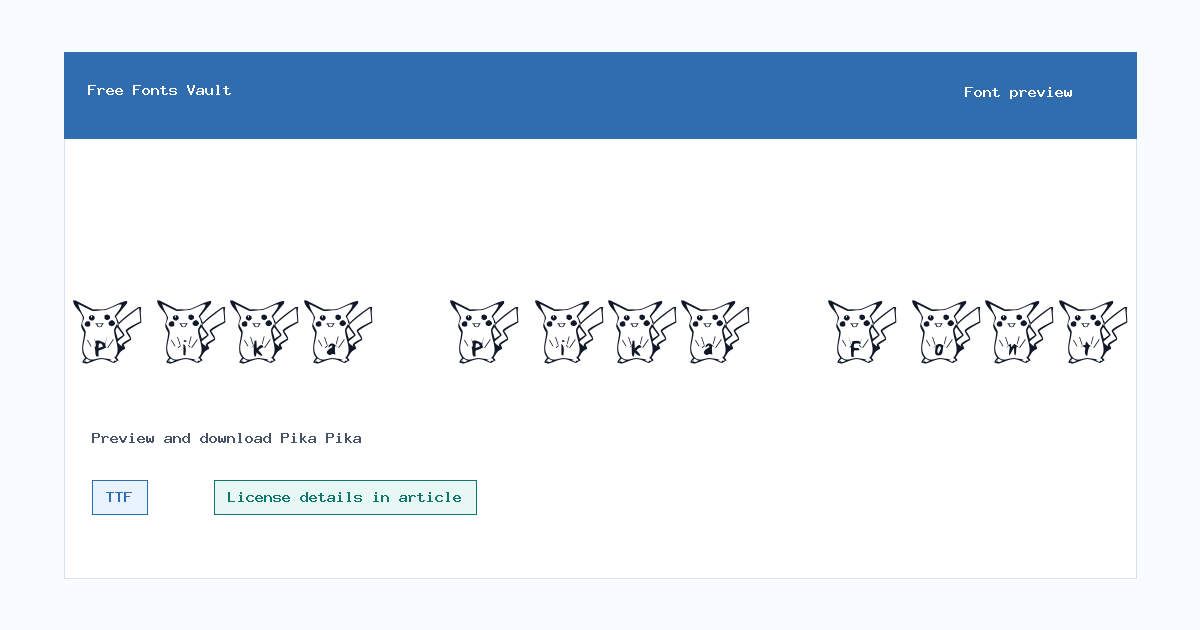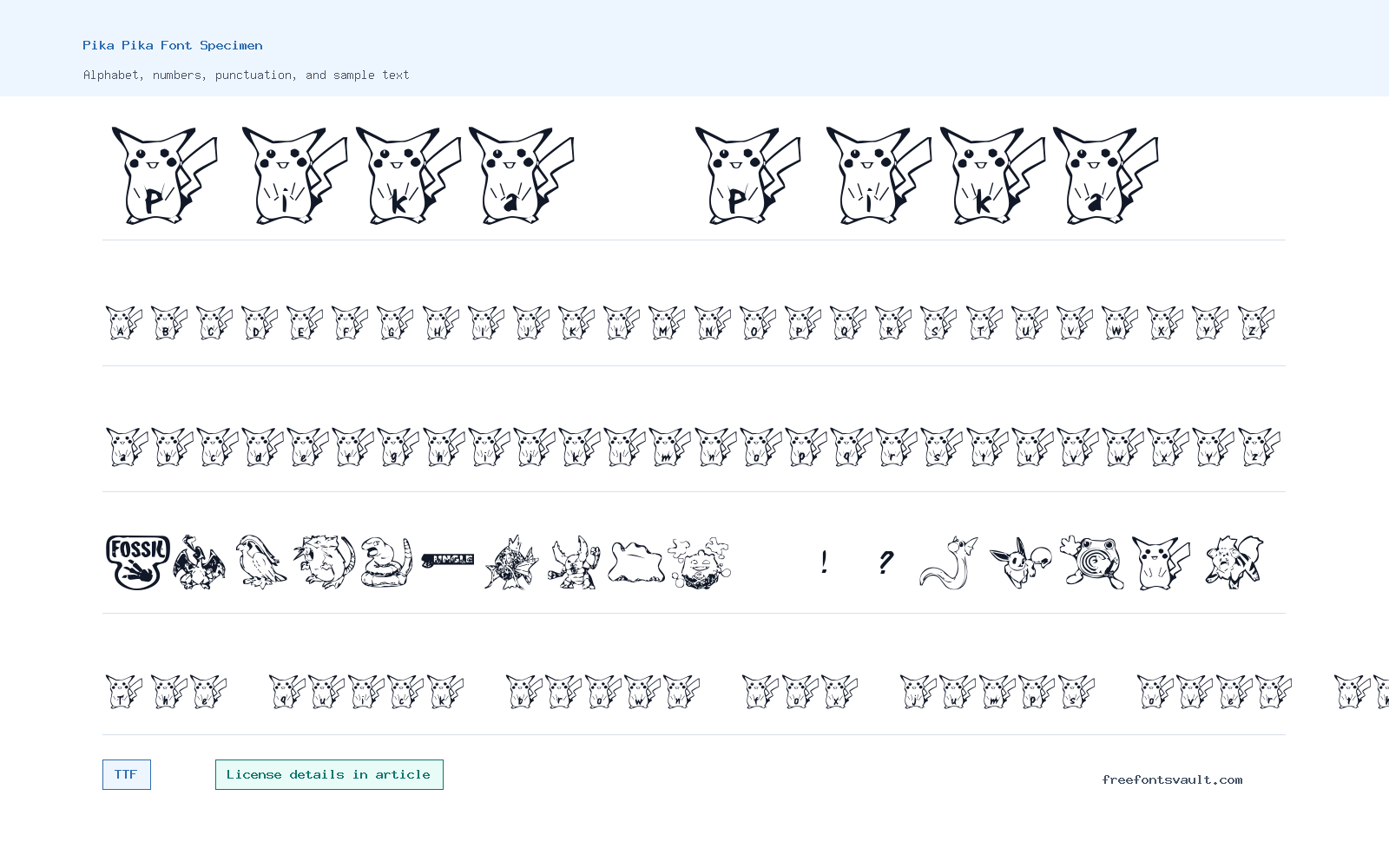
Pika Pika
Pika Pika is a single-style TrueType font for users who want a quick preview, test text, and download option in one place.
About Pika Pika Font
Pika Pika comes as a regular style in TTF format, with normal weight settings. Since only one variant is listed, it is best to test the exact words you plan to use rather than expecting separate bold, italic, or light styles.
Use the preview box to check spacing, punctuation, numbers, and short phrases before downloading. If the font is for a title, logo draft, poster, thumbnail, sticker, or social graphic, try it at the size you expect to use so you can judge readability and balance.
Pika Pika has a playful name and should be judged as a decorative display option until you test the preview. Use it for short, energetic text such as fan-style graphics, stickers, thumbnails, informal posters, social captions, kids-oriented designs, or novelty title treatments.
Keep the wording compact. Playful fonts can lose their charm when forced into long sentences, so preview the main phrase and compare it against a simpler companion font. If the style feels too loud, use Pika Pika for a single word or headline and keep body copy neutral.
Start with short text in the preview, then test uppercase, lowercase, numbers, and common symbols. Because there is only one regular TTF file listed, pair it with a simpler text font if you need longer paragraphs or interface copy. Test uppercase, lowercase, numbers, and punctuation before downloading. If you plan to use it on a small image or mobile layout, check the design at small size so the letter shapes remain readable. For best results, use Pika Pika where the playful tone is intentional: party graphics, informal headers, character-inspired artwork, school flyers, or small social posts. Keep the background simple and avoid placing it over detailed images unless the contrast remains strong. If the font includes unusual letter shapes, test every word in the preview before exporting.